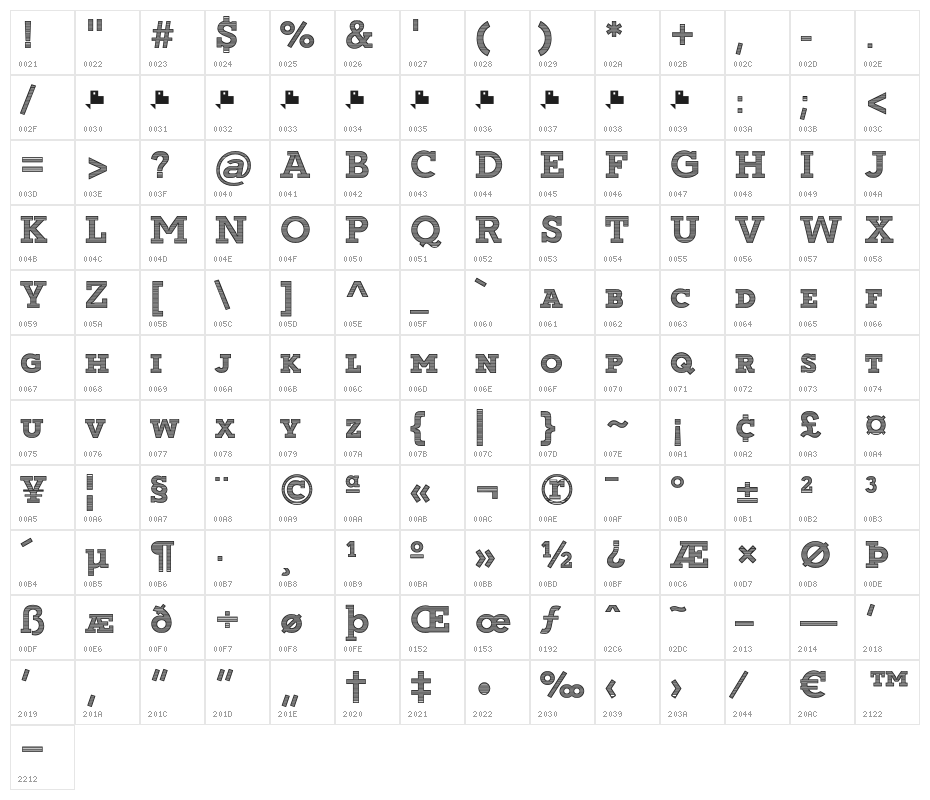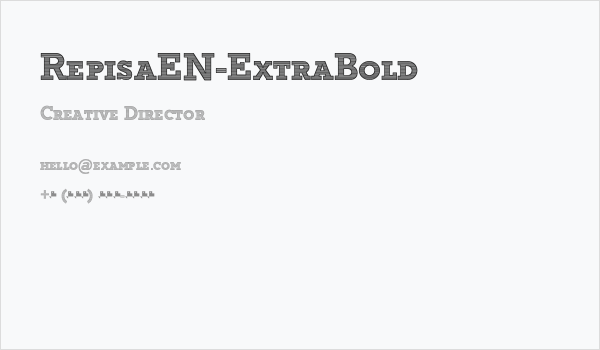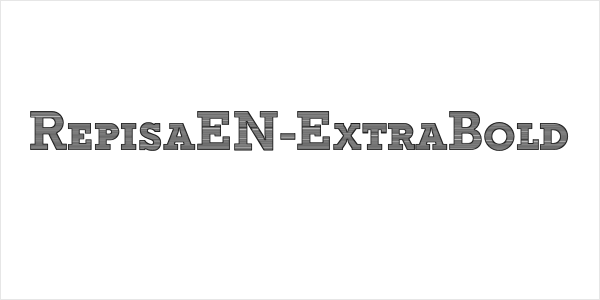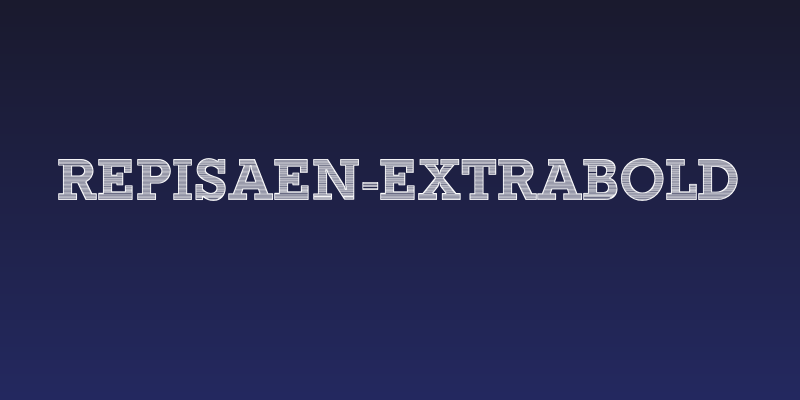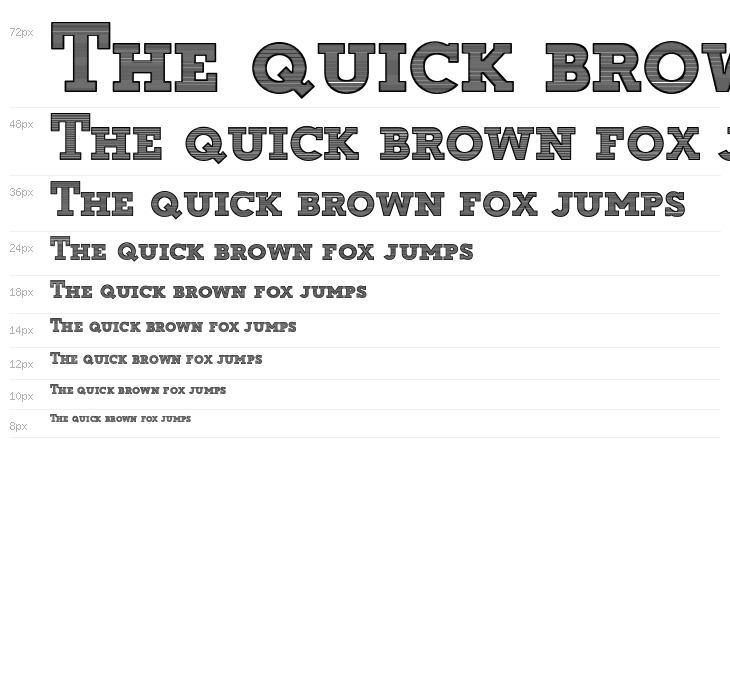
RepisaEN-ExtraBold Font
RepisaEN-ExtraBold Description
This font features a bold and striking design with a three-dimensional effect created by horizontal lines running through each character. The uppercase letters are robust and commanding, making a strong visual impact. The characters are evenly spaced, ensuring readability while maintaining a unique style. The font includes a full set of uppercase letters, numbers, and a variety of special characters, making it versatile for different design needs. Its boldness and decorative elements make it suitable for projects that require a standout typeface.
| Overall Style | Modern, Decorative |
| Proposed Projects | Ideal for posters, headlines, logos, and any design that requires a bold and eye-catching typeface. |